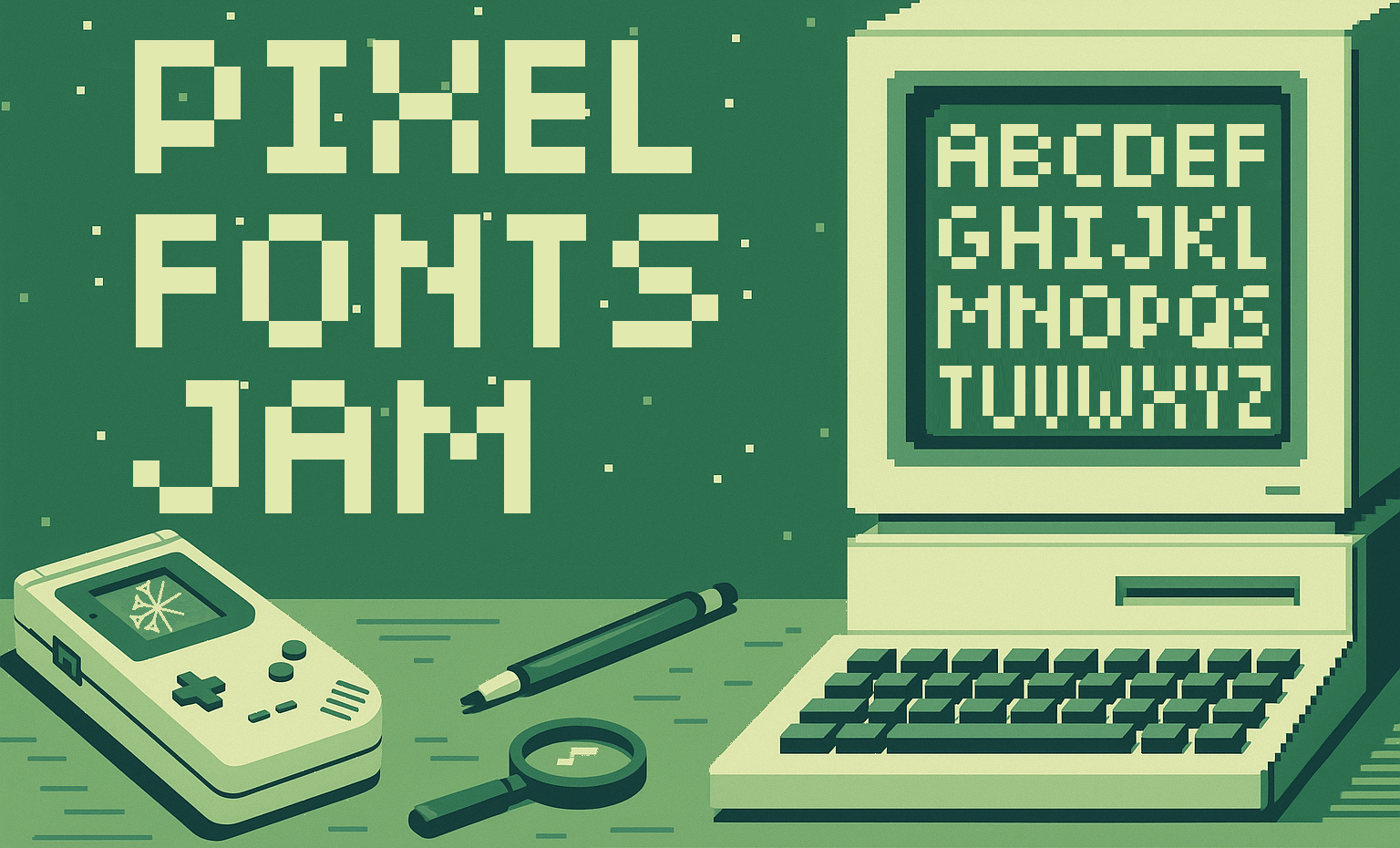
A creative jam for designers, devs, and typography nerds!
A jam dedicated to the beauty of pixelated letters. Create and share your own bitmap or pixel fonts — retro, futuristic, weird, or minimalist — it’s all welcome as long as it's pixel-perfect.
The goal is to design a font made of pixels. You can:
• Create a full alphabet or just a few characters (please, we all know you can do better than this!)
• Show off your font in a mockup, screenshot or mini-game
Fonts must be designed using a pixel grid or style. You may submit:
• A game or demo showcasing your font.
• A preview image or mockup.
• Legibility
• Creativity
• Pixel Craftsmanship
• Presentation / Use case